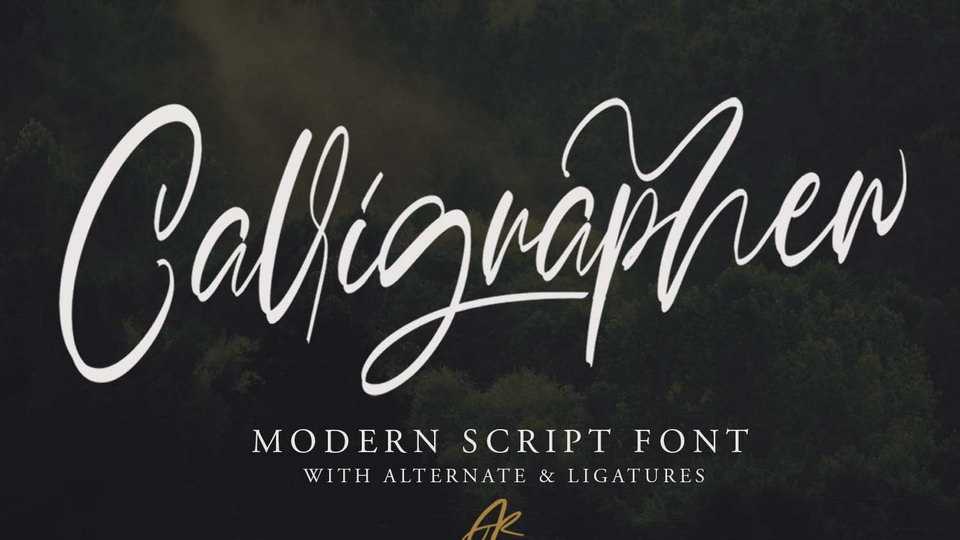
Calligrapher Script Font › Fontesk
Download Calligrapher font, an elegant sctipt with its own distinctive style, luxurious in every character. Calligrapher good for logotype, poster, badge, book cover, tshirt design, packaging and any more.
Designer: Arendx Studio